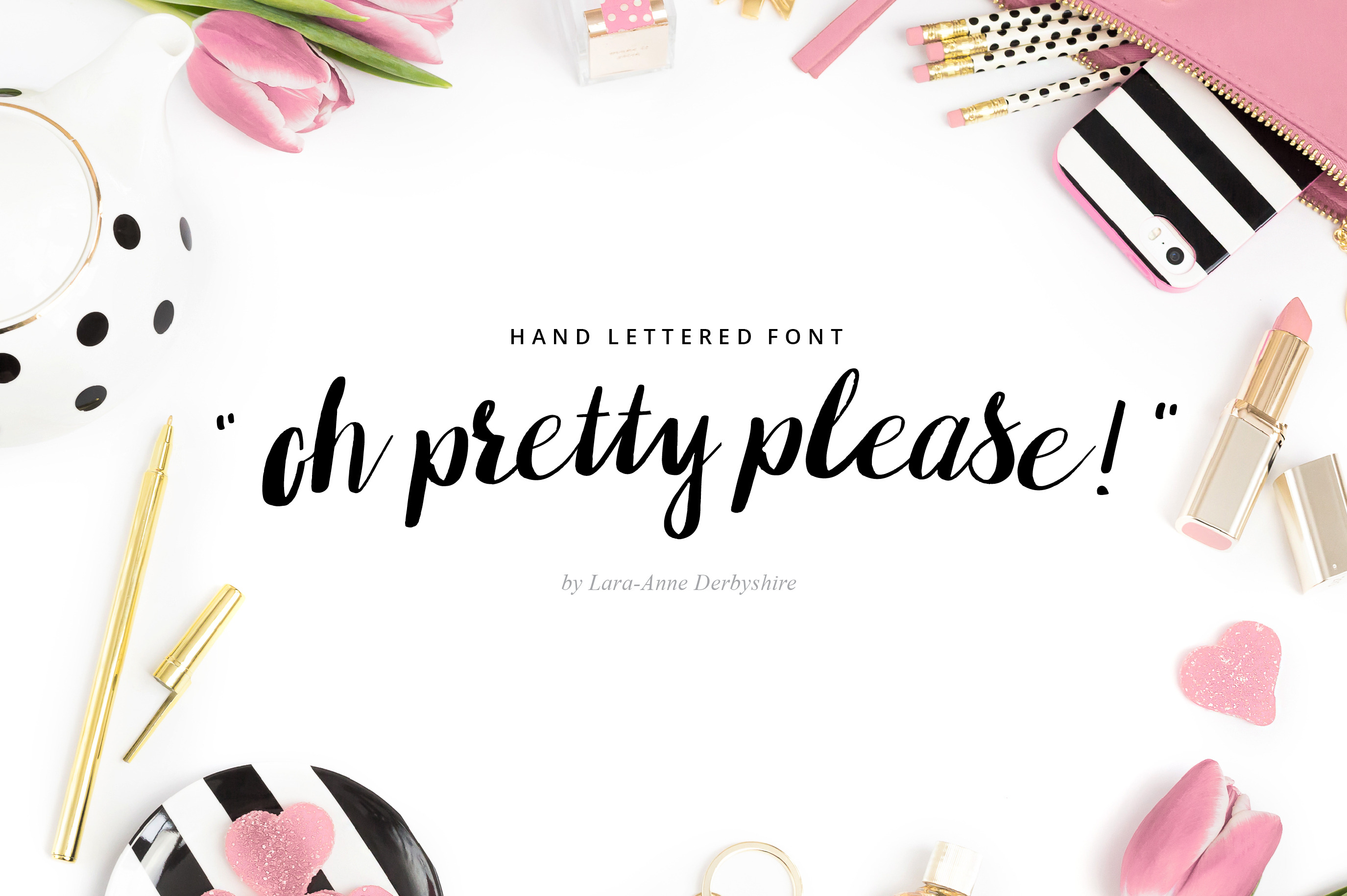
Oh pretty please: Hand lettered font
Oh pretty please is a whimsical yet bold hand lettered font that is gorgeous to use for logos, wedding invitations, inspiring quotes, on websites and so much more - let your imagination run wild with this one!